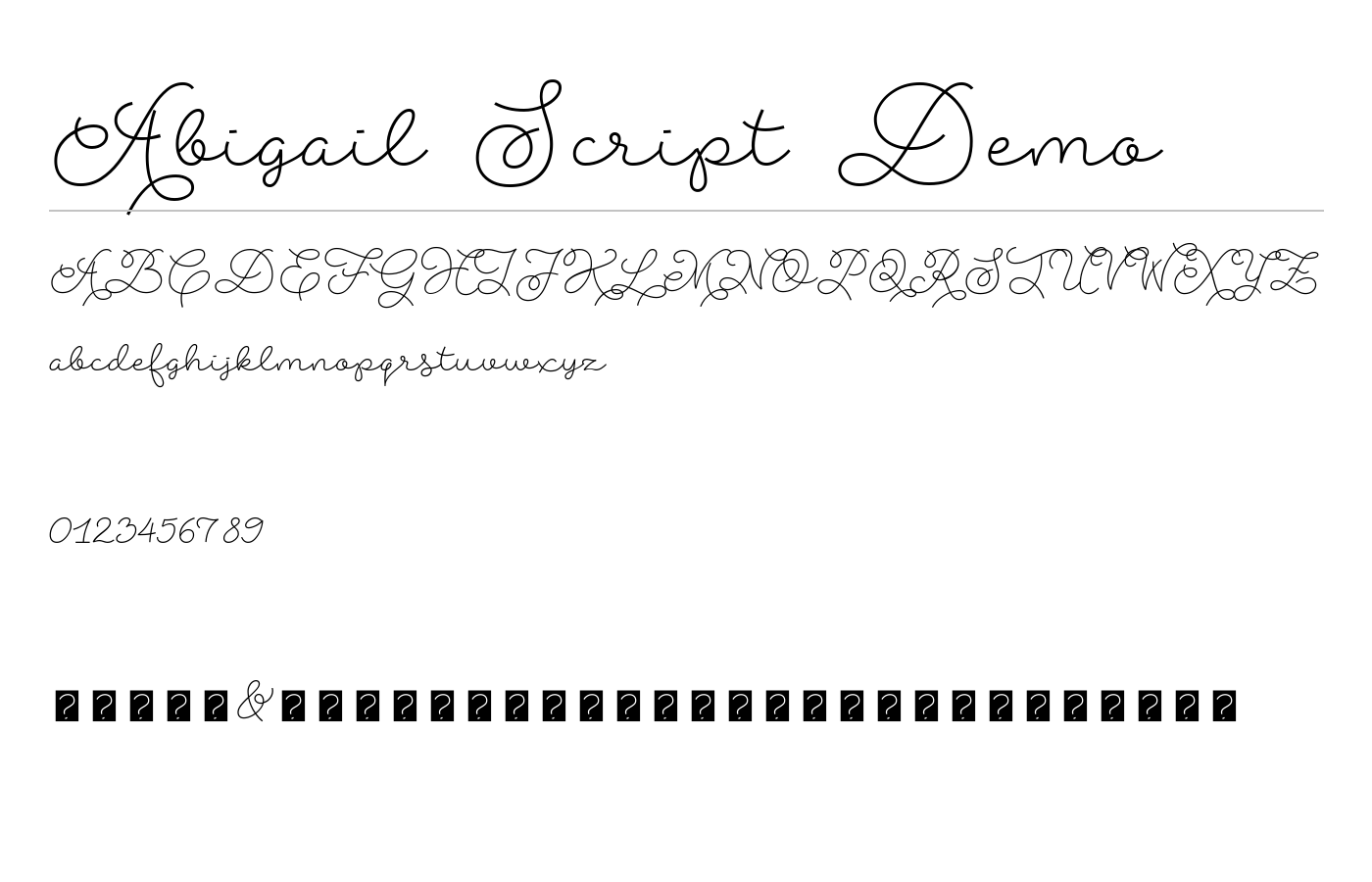
Abigail Script Demo is a delicate and elegant handwritten script font characterized by its fine, flowing lines and intricate swirls, especially in the uppercase letters. Its light weight and airy, graceful style make it ideal for projects that require a romantic or sophisticated touch, such as wedding invitations, feminine branding, or elegant logos. This font’s decorative nature suits display use rather than body text, lending a personal and refined feel to any design.
Abigail Script Demo Font
About Abigail Script Demo Font